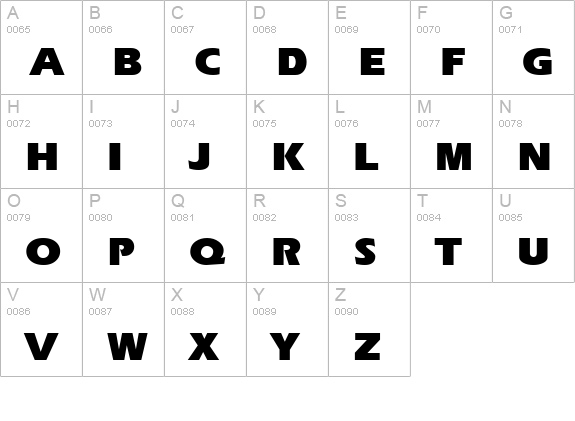
ErgoeBlack Regular Font Details
ErgoeBlack Regular is the standard, neutral variant in the ErgoeBlack typeface family \xE2\x80\x94 well suited to general body text, paragraphs, and standard typographic work.
ErgoeBlack Regular font is a versatile and modern typeface that exudes sophistication and professionalism. Its clean lines and balanced proportions make it perfect for a wide range of design projects, from branding to editorial to web design. With its bold presence and sleek appearance, ErgoeBlack Regular font is sure to make a statement and leave a lasting impression. What's even better is that ErgoeBlack Regular font is available for free download at FontsMarket.com. This means you can easily access this high-quality font and use it in your projects without any cost. Whether you're a designer, a business owner, or a creative individual looking to elevate your work, ErgoeBlack Regular font is a fantastic tool to have in your arsenal. Download it today and experience the power and elegance of this beautiful typeface.